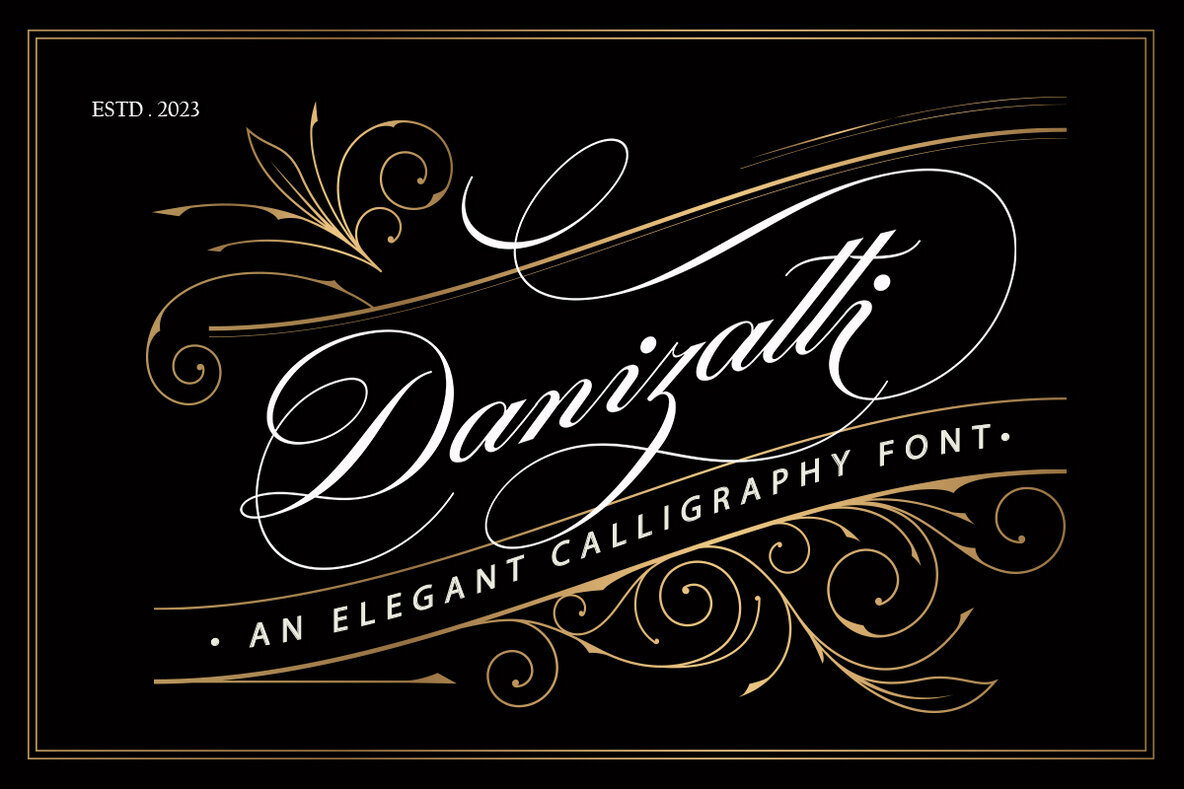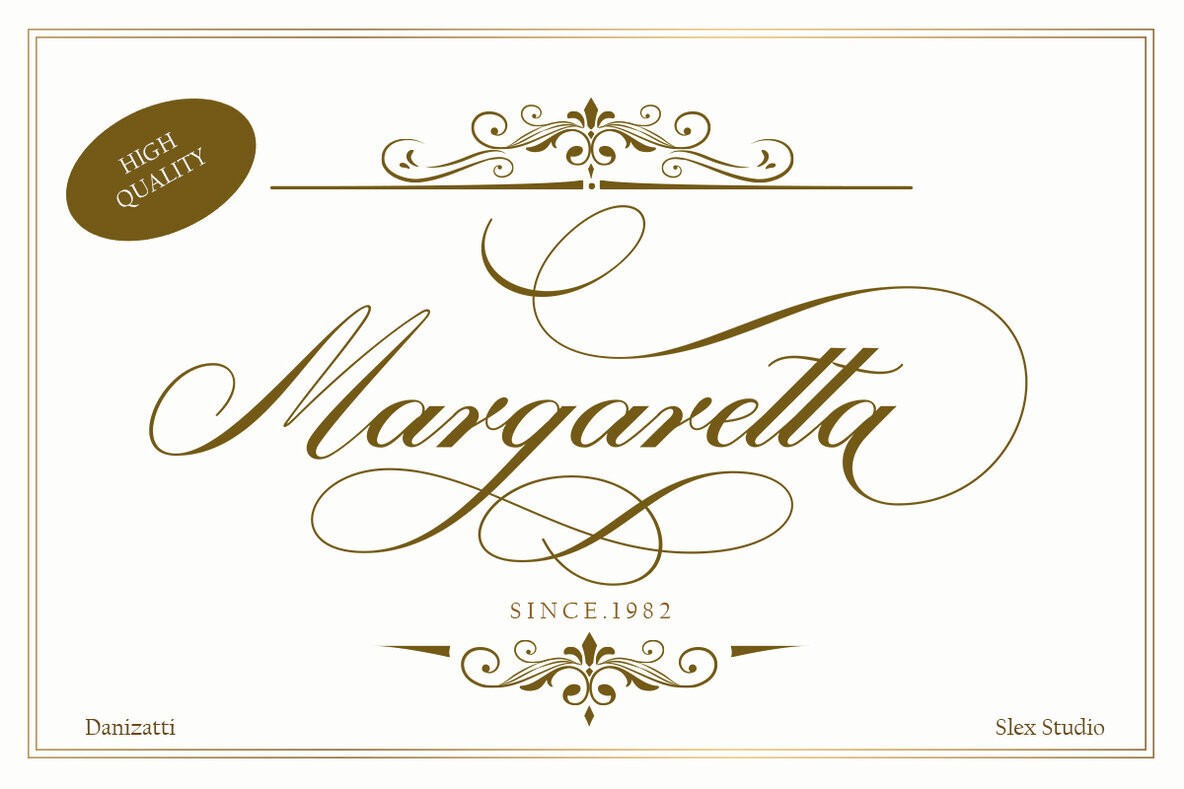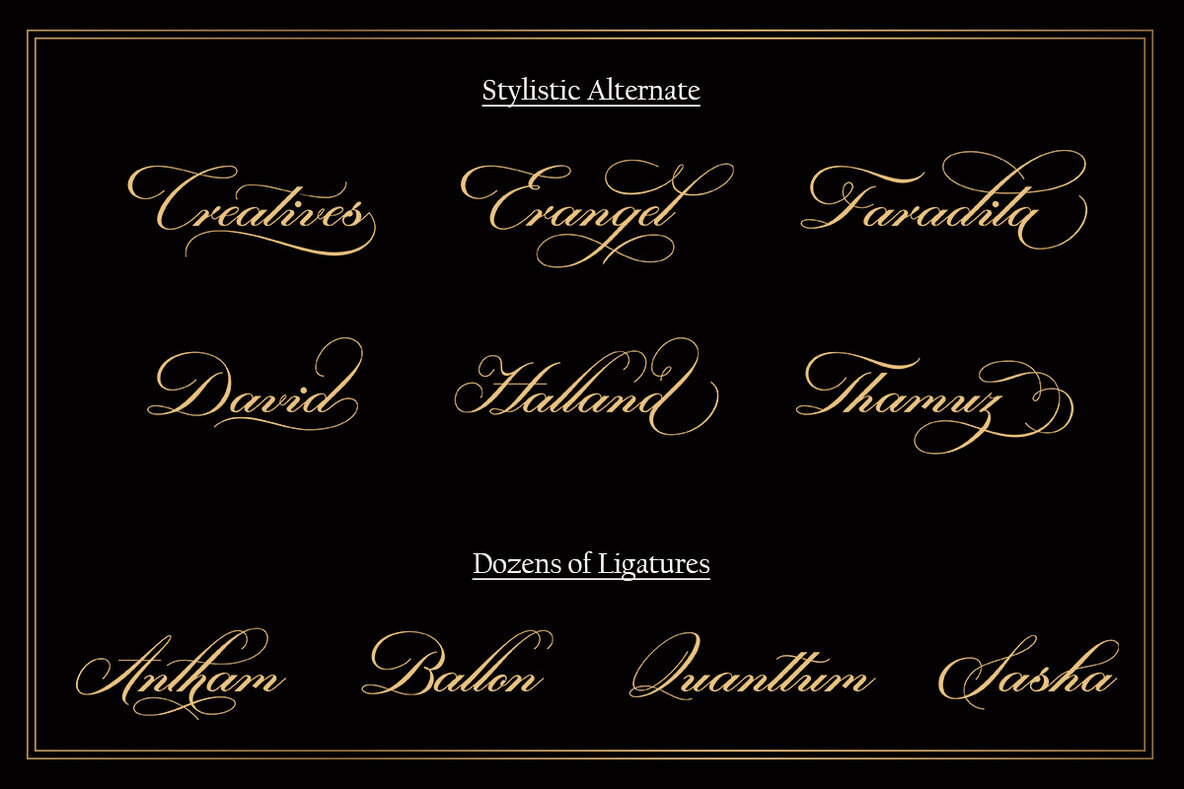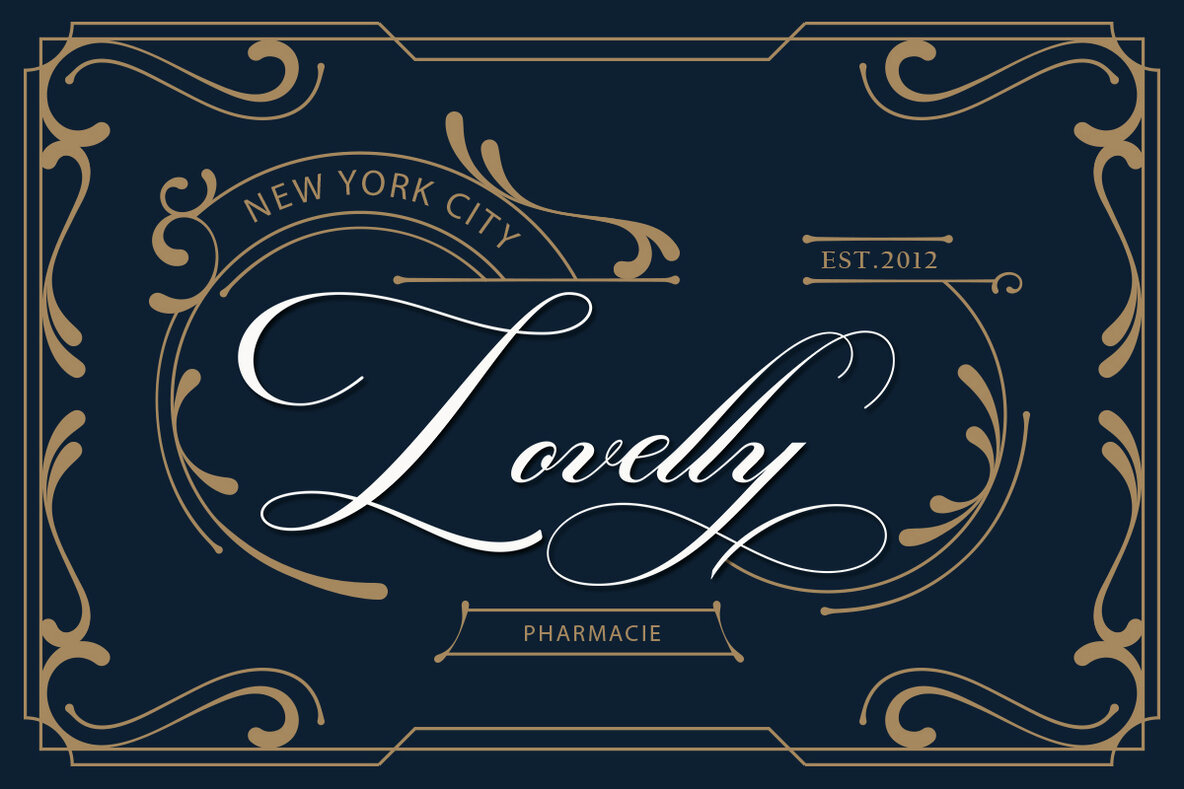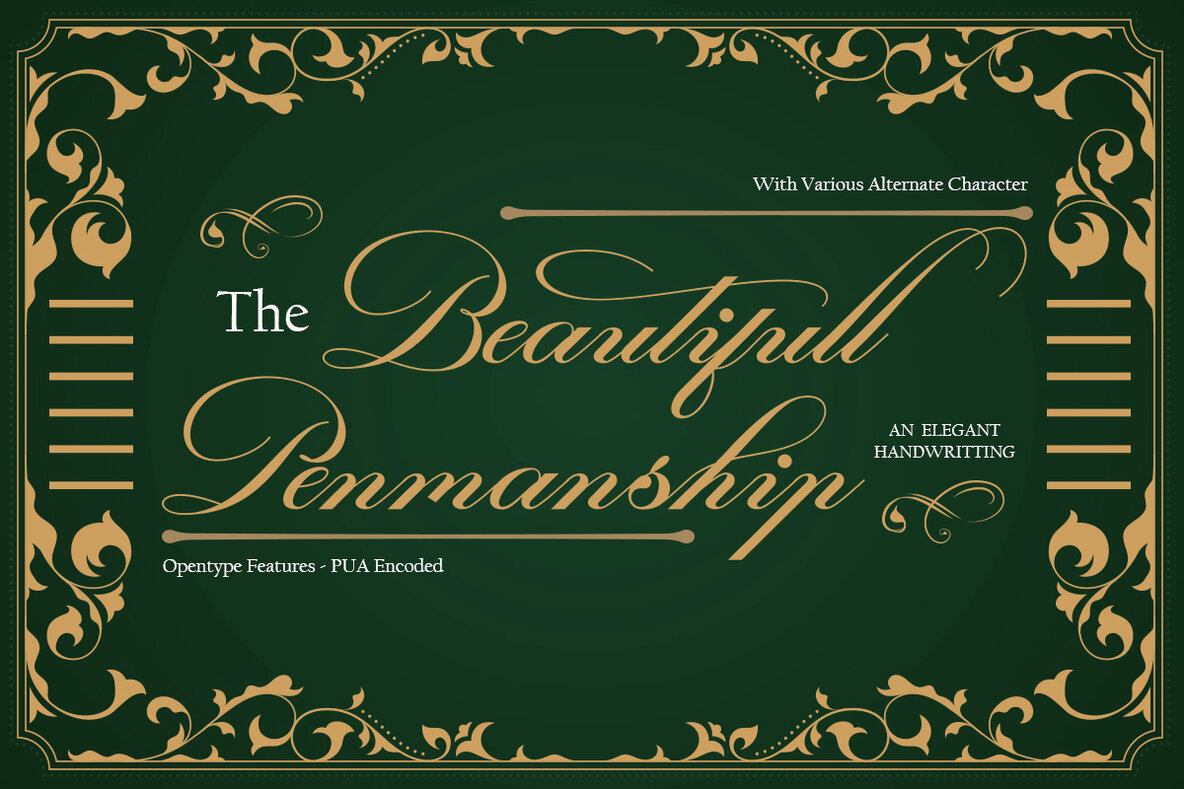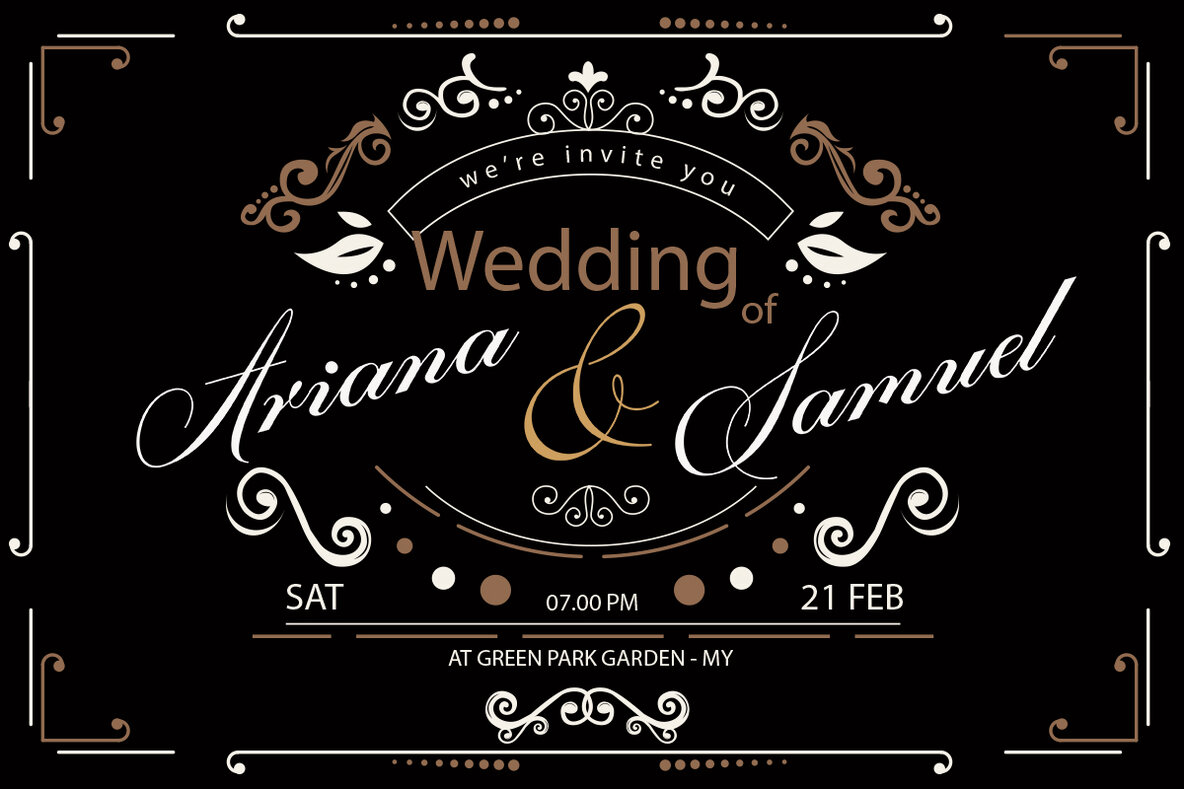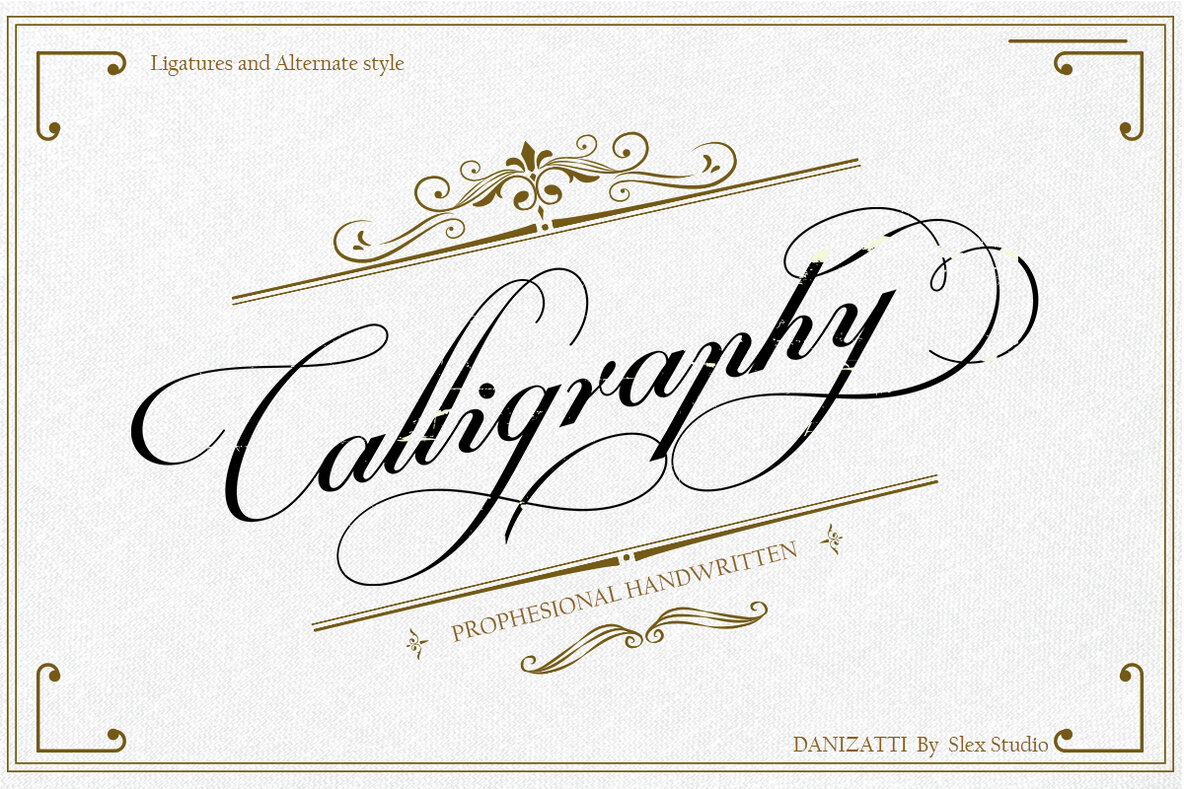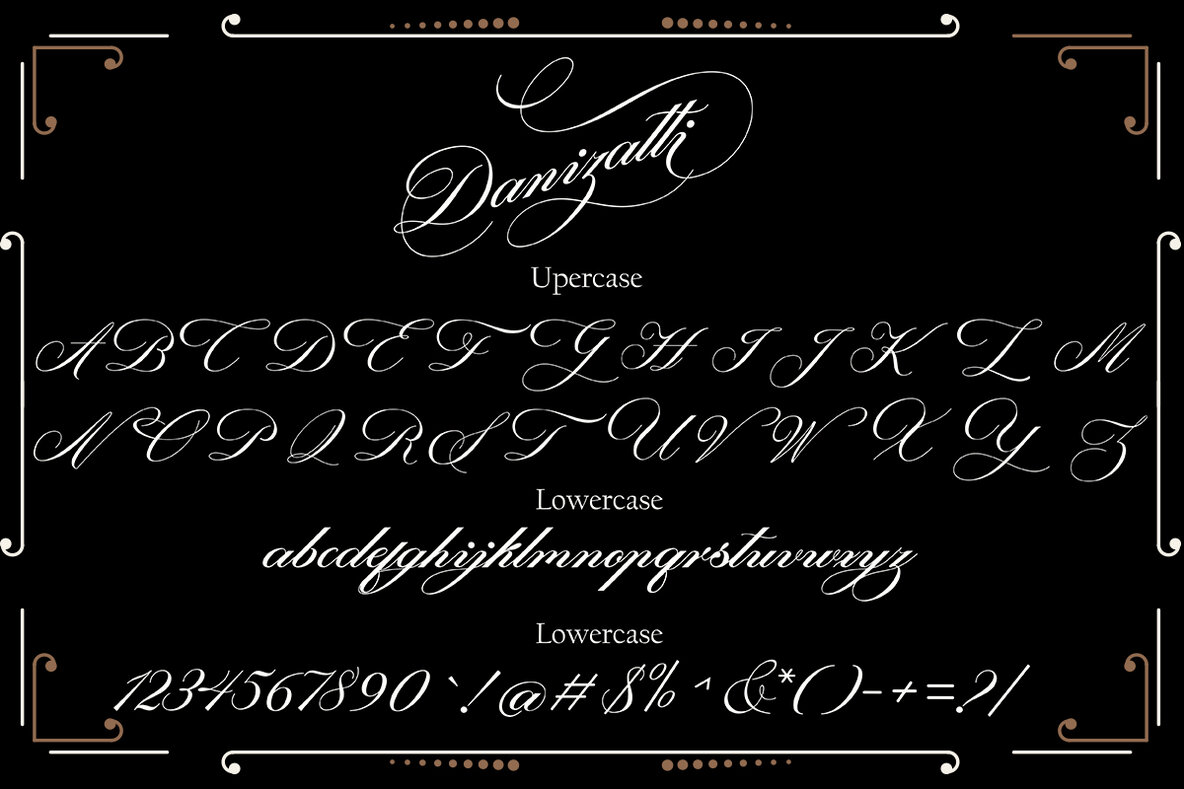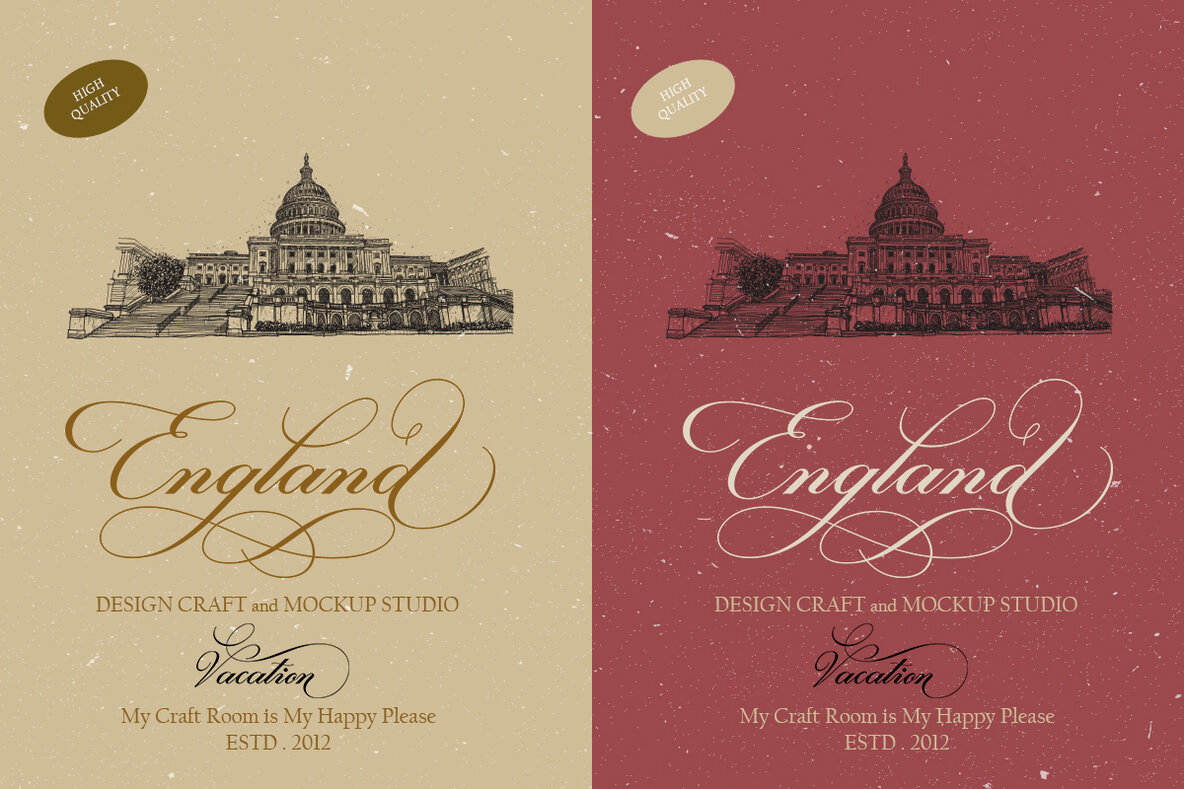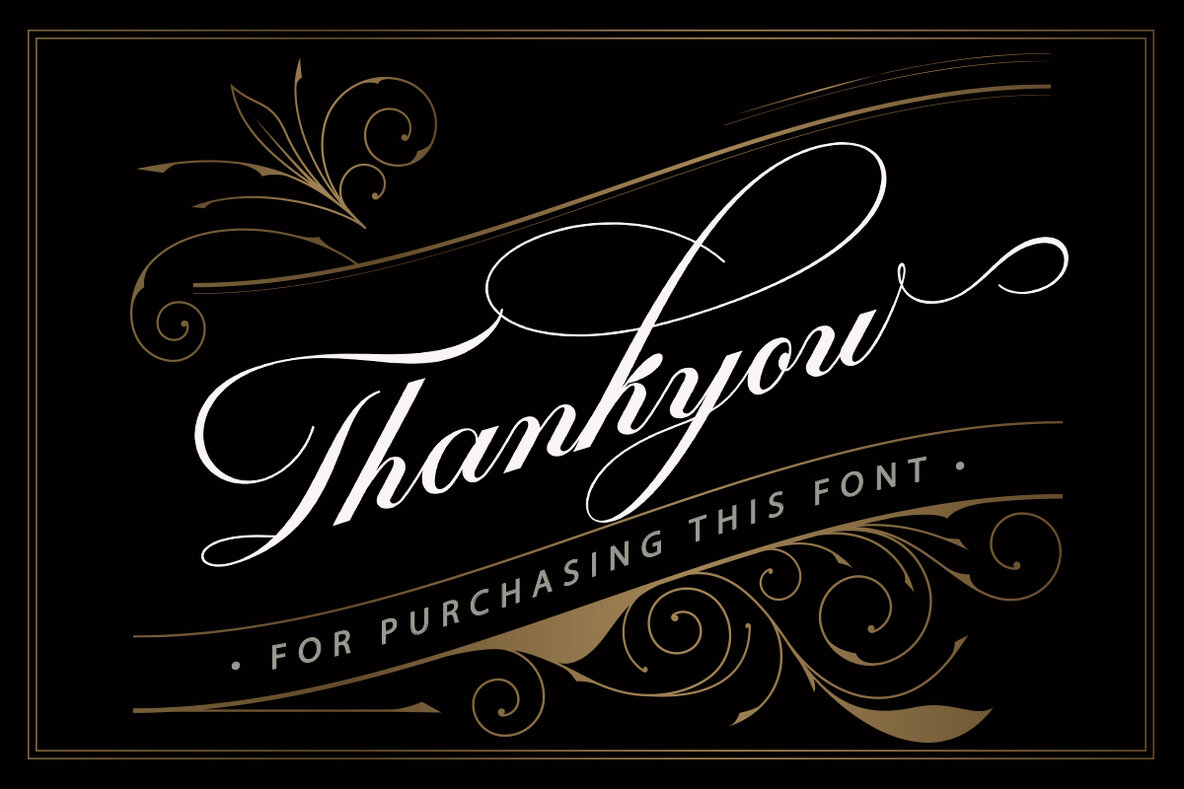
Danizatti Font
Danizatti script Regular
Danizatti Script is an elegant decorative script font, blending classic aesthetics with a modern flair. Perfect for creating vintage logos, fashion labels, custom card headers, badges, and food packaging designs, this font finds its true charm in wine labels.Danizatti Script: Elegant Decorative Script for Vintage Appeal